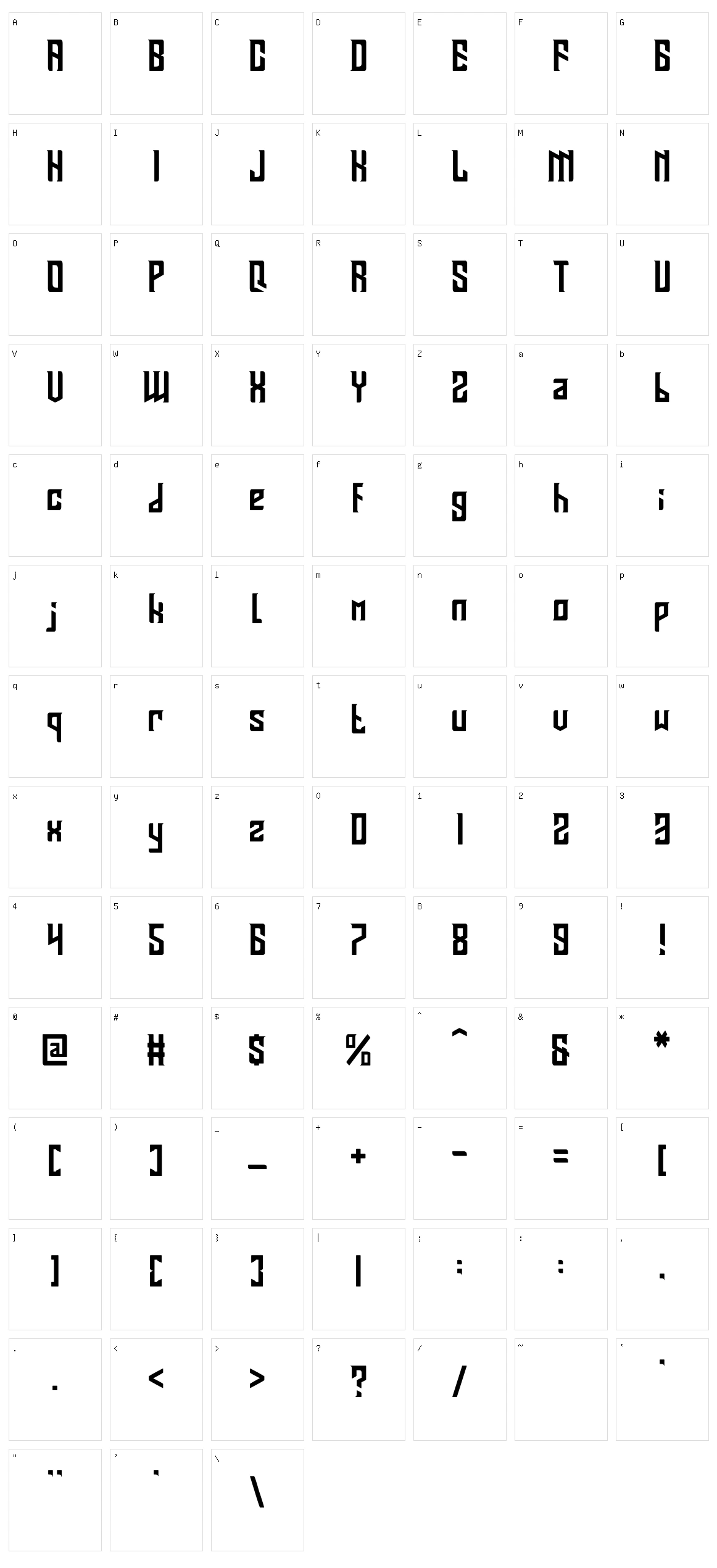
Basteru
Description: The free font Basteru is carefully designed by Eight template Studio, showcasing a thoughtful balance of creativity and usability and belongs to the Gothic font family. When you download the ZIP file, it contains only 17.41 KB of font files, making it lightweight and quick to download. Please review the license details below to understand permitted usage and distribution rights. If license information is not available, we recommend using this font for personal projects only or contacting the author directly for commercial usage permissions.
Basteru is a vintage serif font created for your needs. Basteru is very suitable for logos for branding, typographic designs, badge designs, product packaging, invitations, offers, t-shirt designs, label posters, special events, and anything that requires vintage tastes.
Basteru Character Set